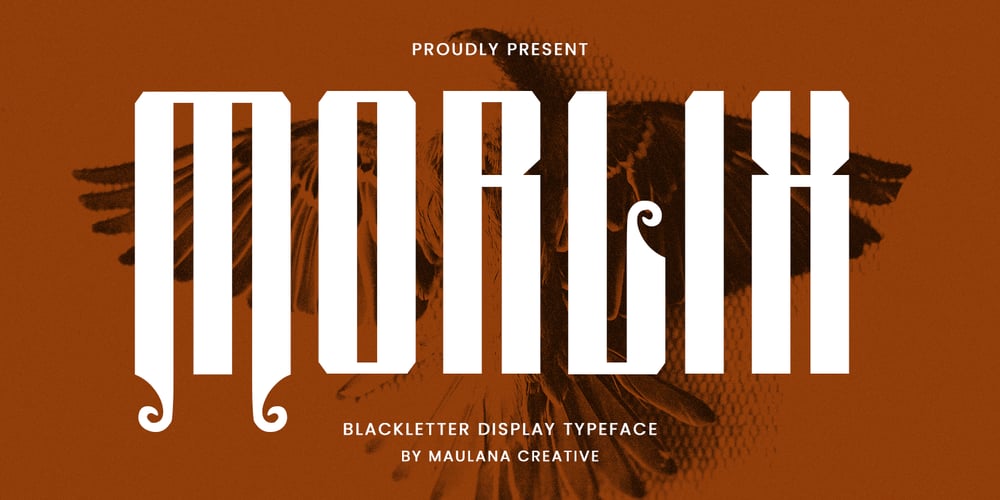
MC Morlix Font Family was designed by Gilang Maulana and published by Maulana Creative. MC Morlix contains 1 styles and family package options. Morlix Blackletter Decorative Display Font. With bold tall and sharp stroke, fun character. To give you an extra creative work. Morlix font support multilingual more than 100+ language. This font is good for logo design, Social media, Movie Titles, Books Titles, a short text even a long text letter and good for your secondary text font with sans or serif. Make a stunning work with Morlix font.–UppercaseCheers,Maulana Creative